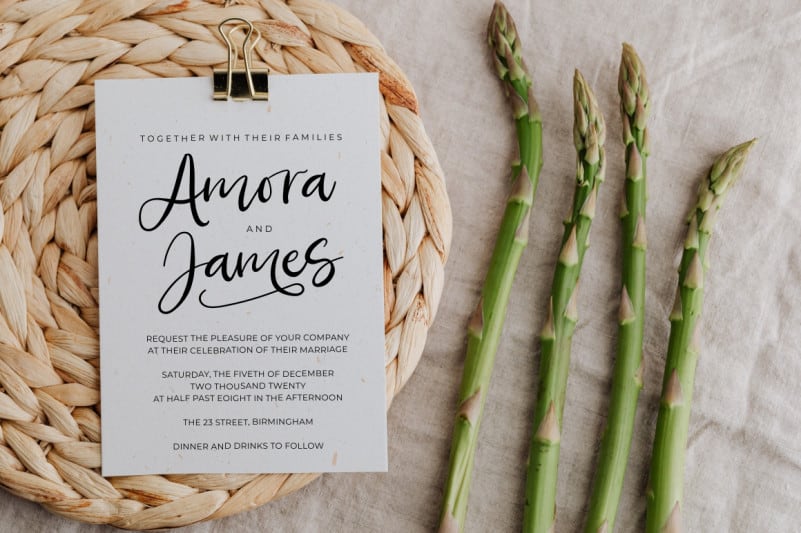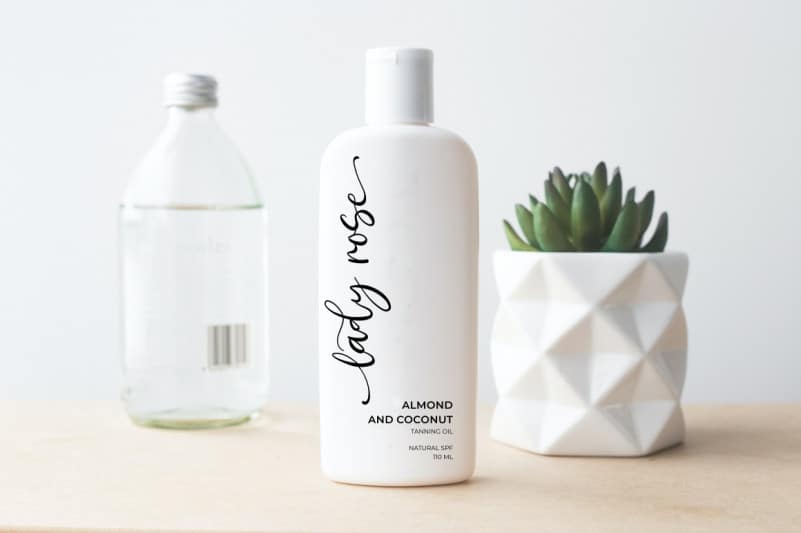
Fancy Darling Calligraphy Font
Introducing the elegant new Fancy Darling. A new handwritten script font with elegant inky flow.
Fancy Darling Calligraphy Font includes full set of charming uppercase and lowercase international letters, numerals, a large range of punctuation and ligatures. All lowercase letters include beginning and ending swashes. It\’s the perfect choice for stylish branding & logo projects, product packaging, handwritten quotes, editorial design invites, greetings and so much more!